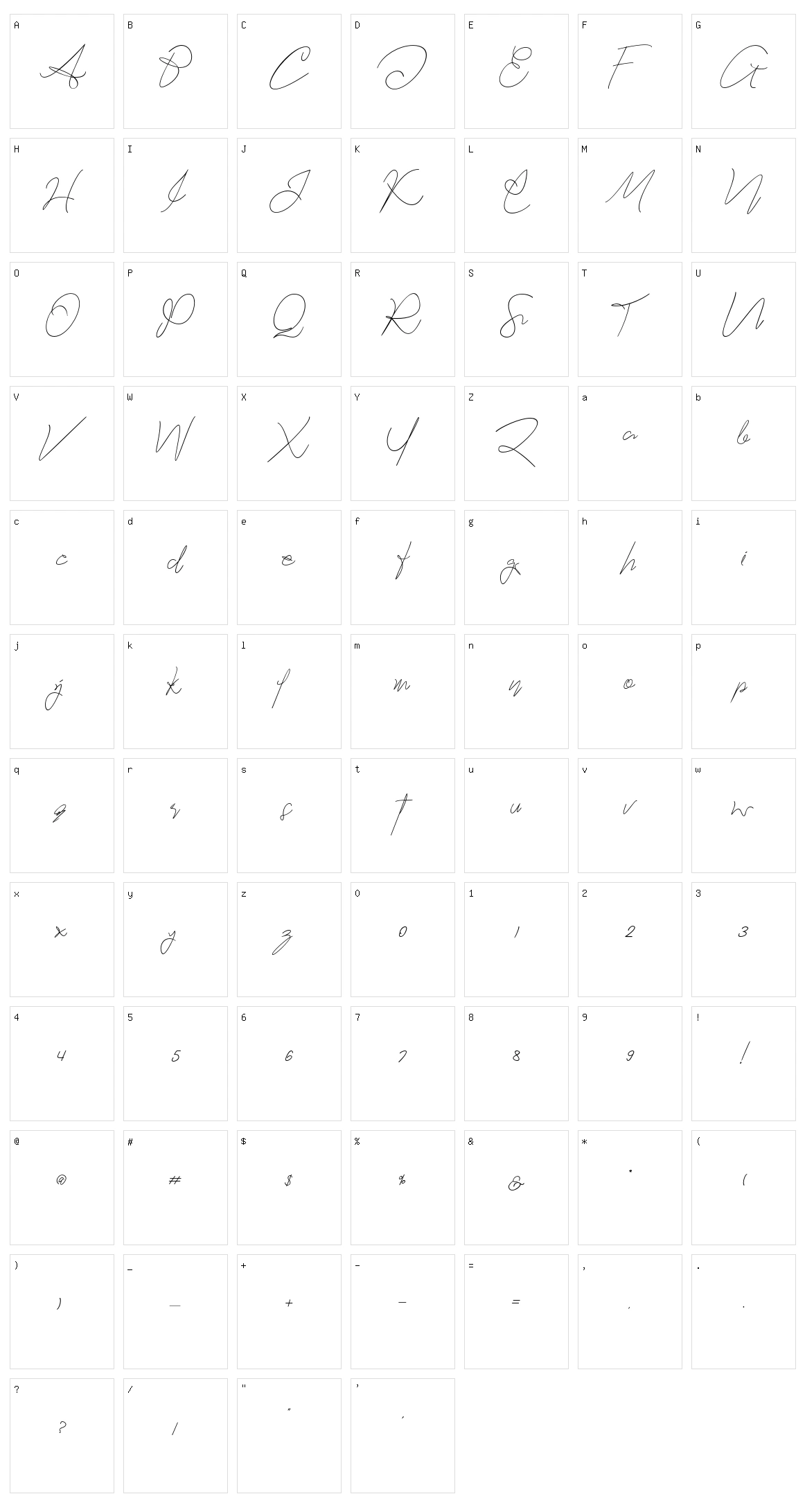
The free font Hartford is carefully designed by Creativework69 Studio, showcasing a thoughtful balance of creativity and usability and falls under the Script font style. When you download the ZIP file, it contains only 66.09 KB of font files, making it lightweight and quick to download. Please review the license details below to understand permitted usage and distribution rights. If license information is not available, we recommend using this font for personal projects only or contacting the author directly for commercial usage permissions.